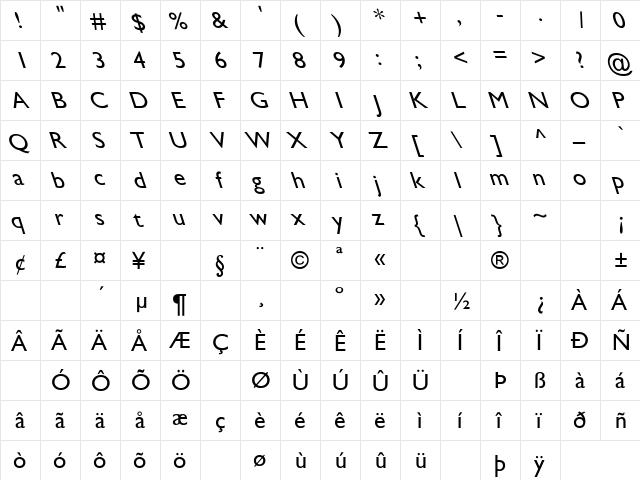
Gill Sans Leftified Regular
Design Context for Gill Sans Leftified Typeface
Gill Sans Leftified is a composed and adaptable typeface that performs quietly and consistently across a wide range of design contexts.